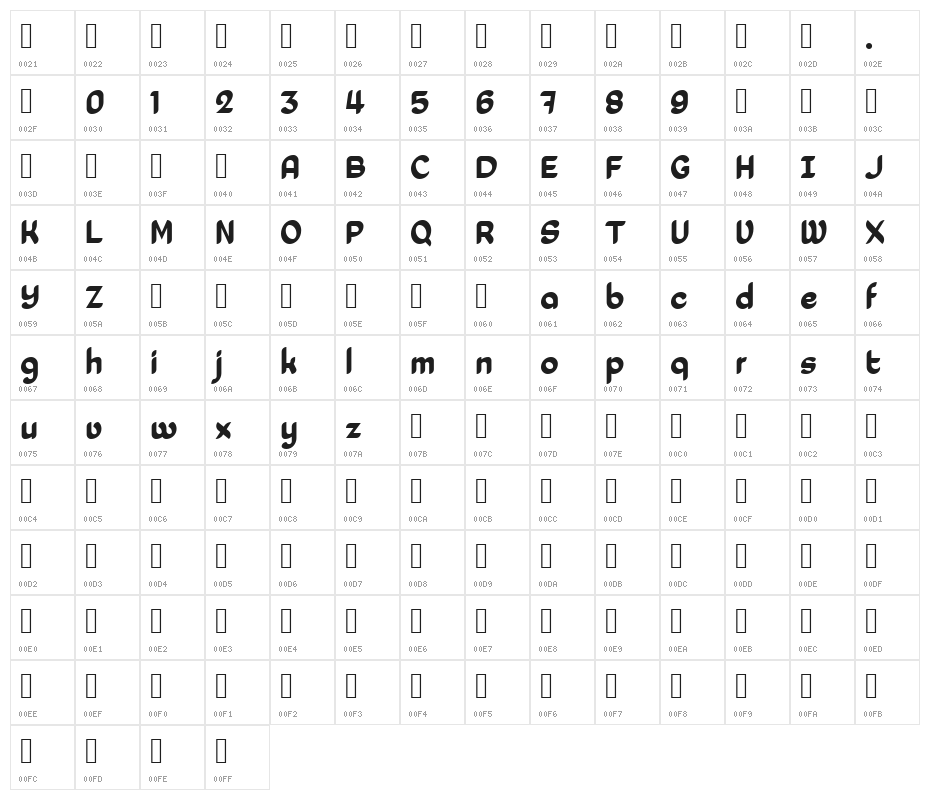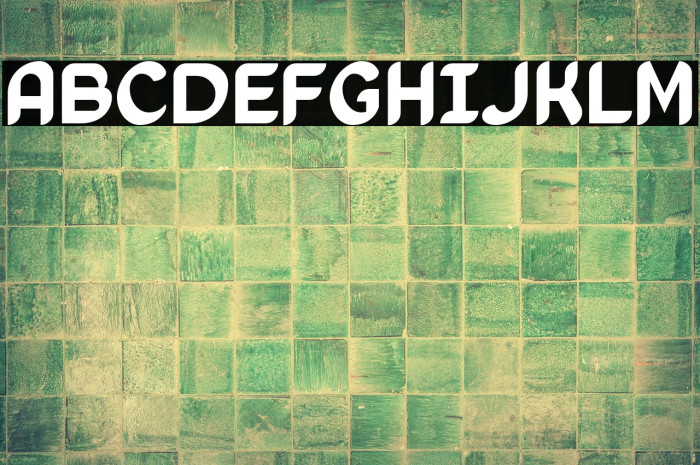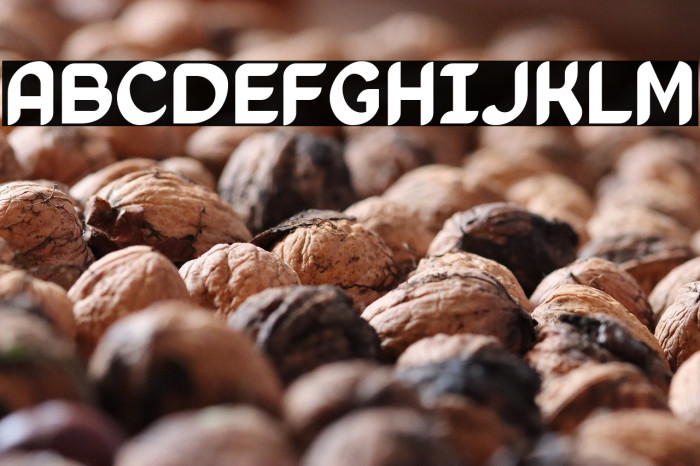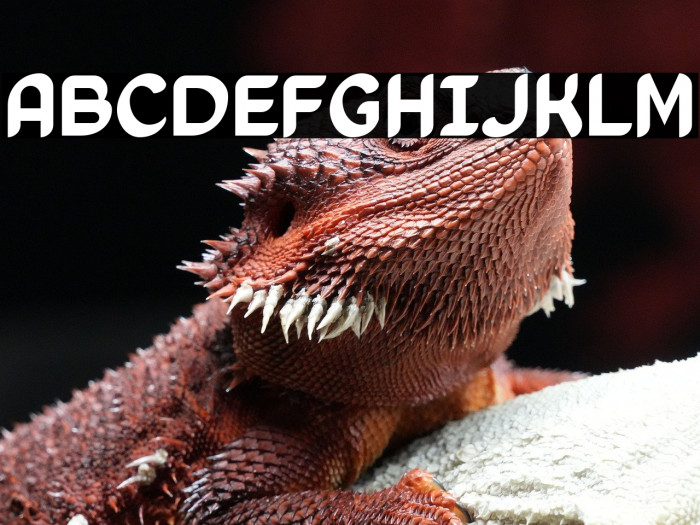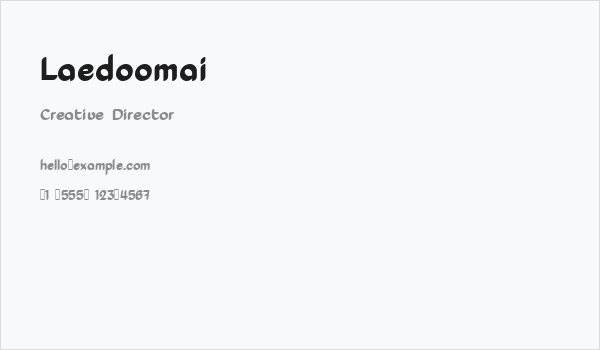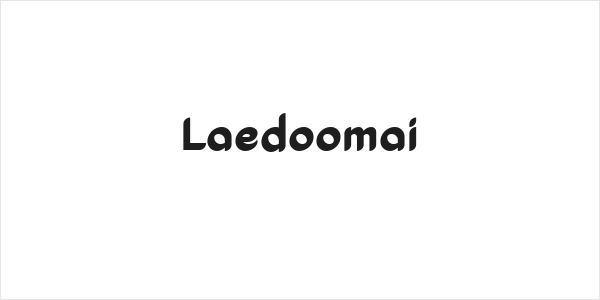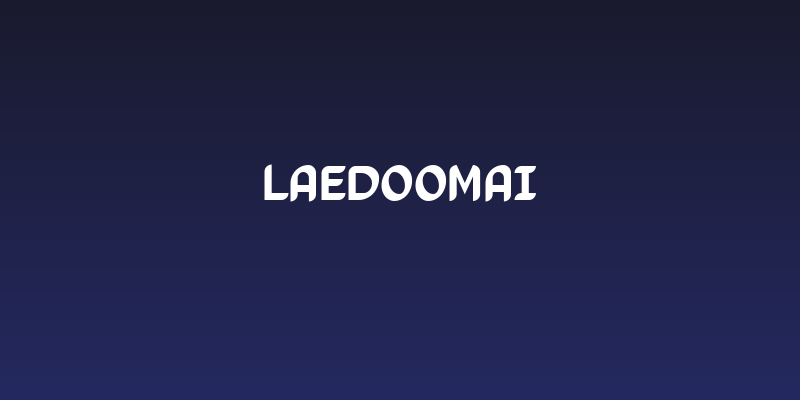
Laedoomai Font
Laedoomai Description
This font features bold, rounded characters with a playful and modern aesthetic. The uppercase and lowercase letters maintain a consistent thickness, creating a uniform appearance. The numbers are equally bold, ensuring readability and impact. The special characters are designed to match the overall style, adding a cohesive look to any text. The font's rounded edges and smooth curves give it a friendly and approachable feel, making it suitable for a variety of design projects.
| Proposed Projects | Ideal for children's books, playful branding, posters, and social media graphics. |